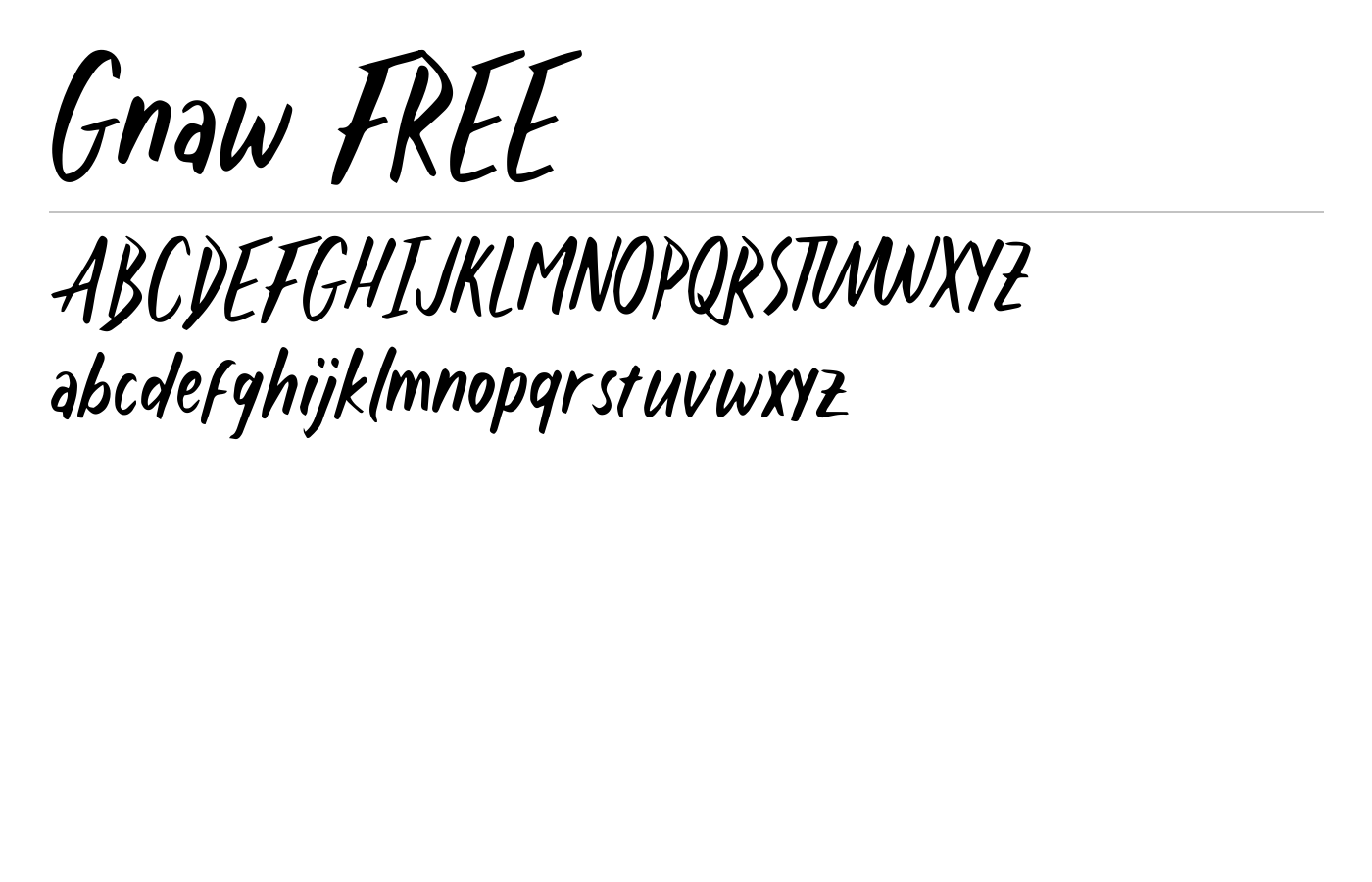
Gnaw is a dynamic handwritten script font with a casual, energetic feel, featuring slightly condensed letters and uneven strokes that mimic natural brushwork. Its tall x-height and irregular character shapes give it a lively, playful personality ideal for creative projects, informal branding, and eye-catching headlines. This font works well where a personal, expressive look is desired, such as posters, social media graphics, and friendly packaging designs.
Gnaw Font
About Gnaw Font
| Font family | Gnaw Font |
| Designer | Inspiratype |